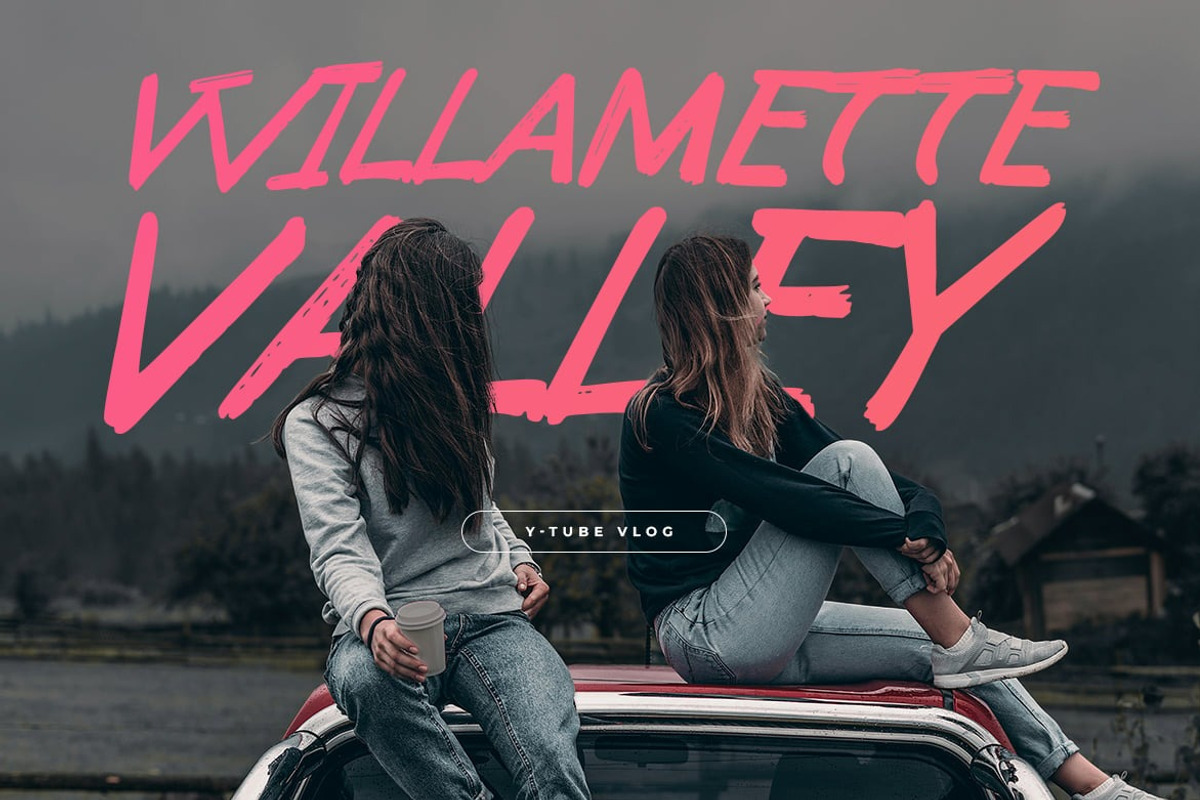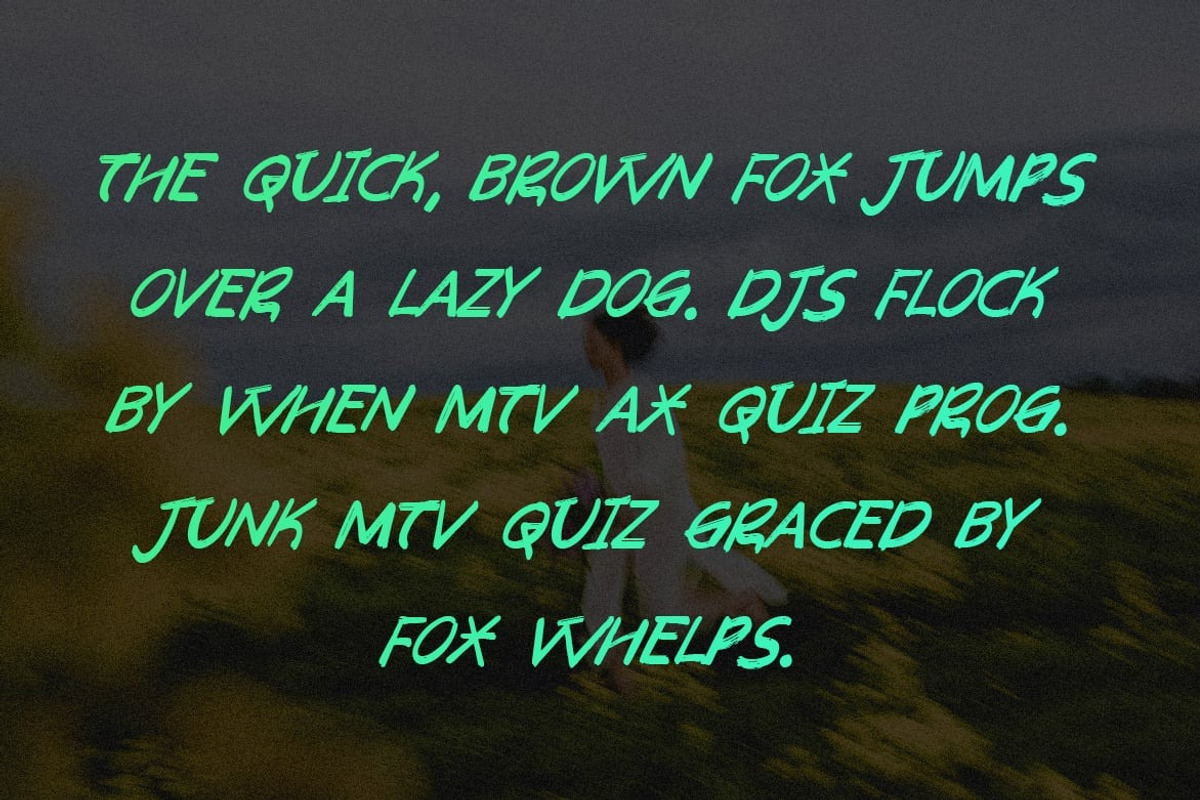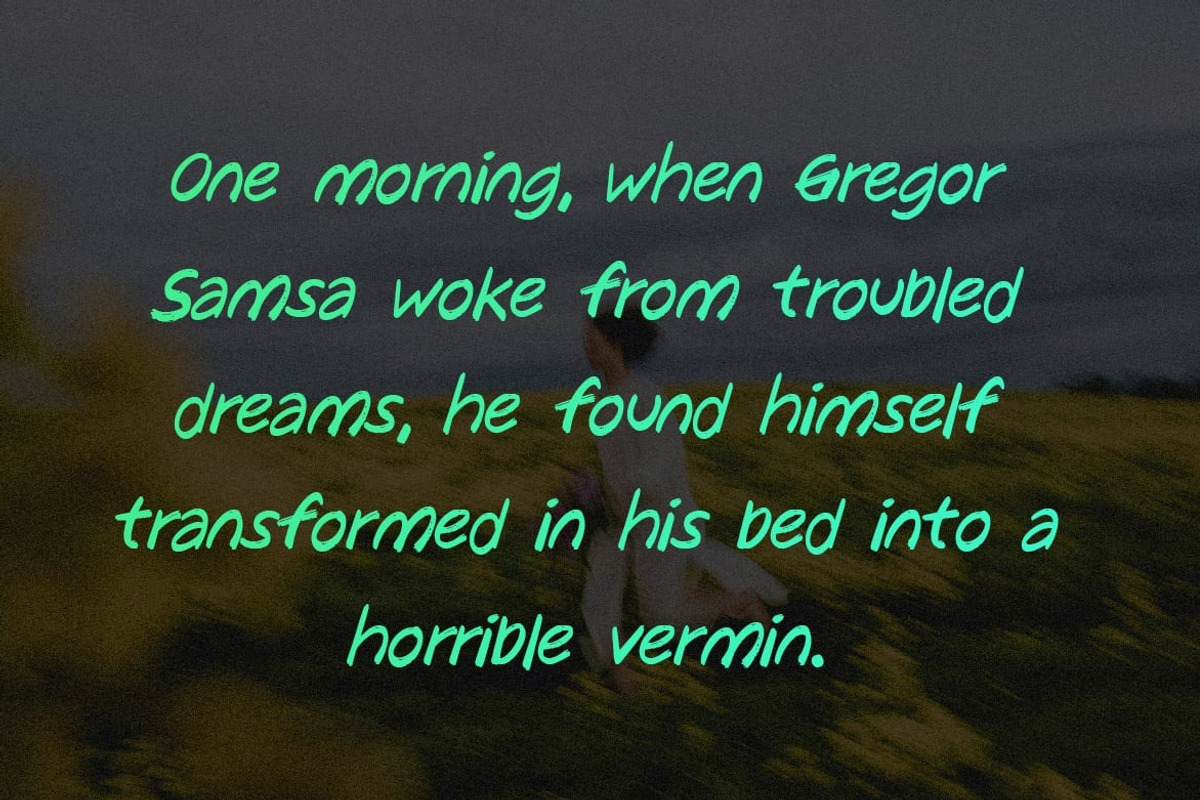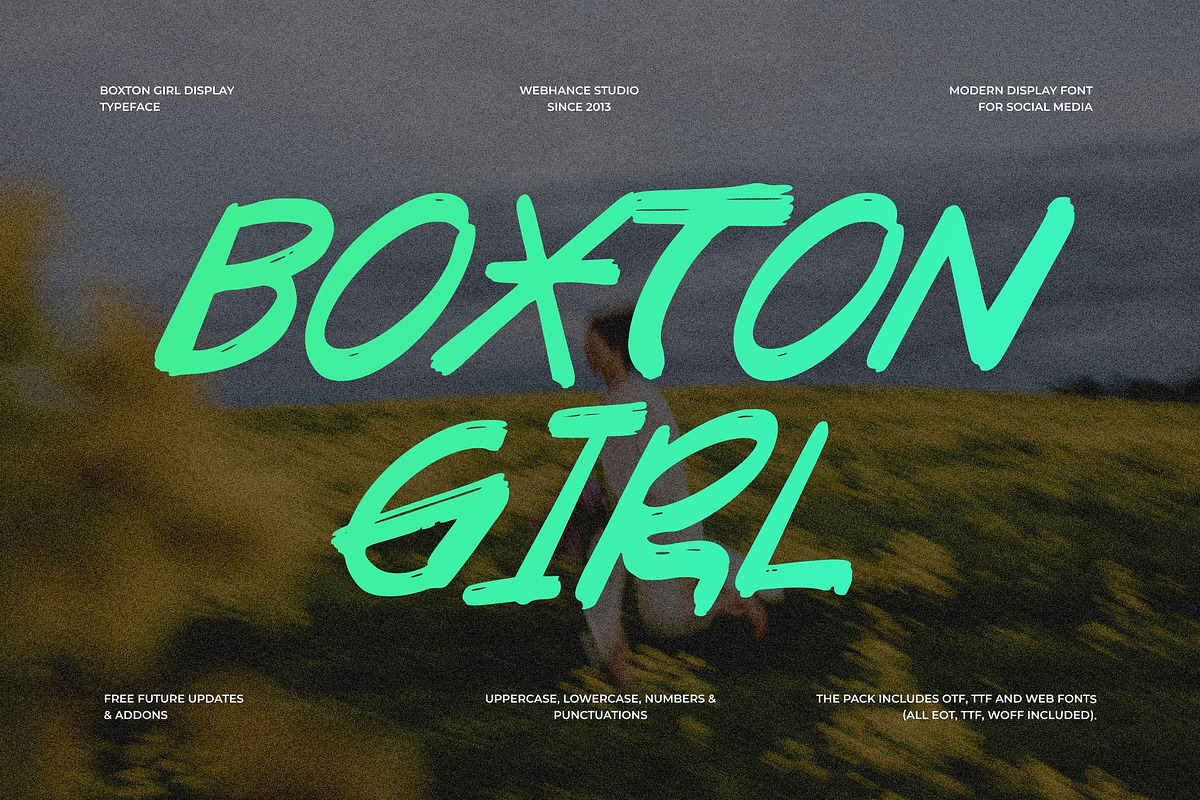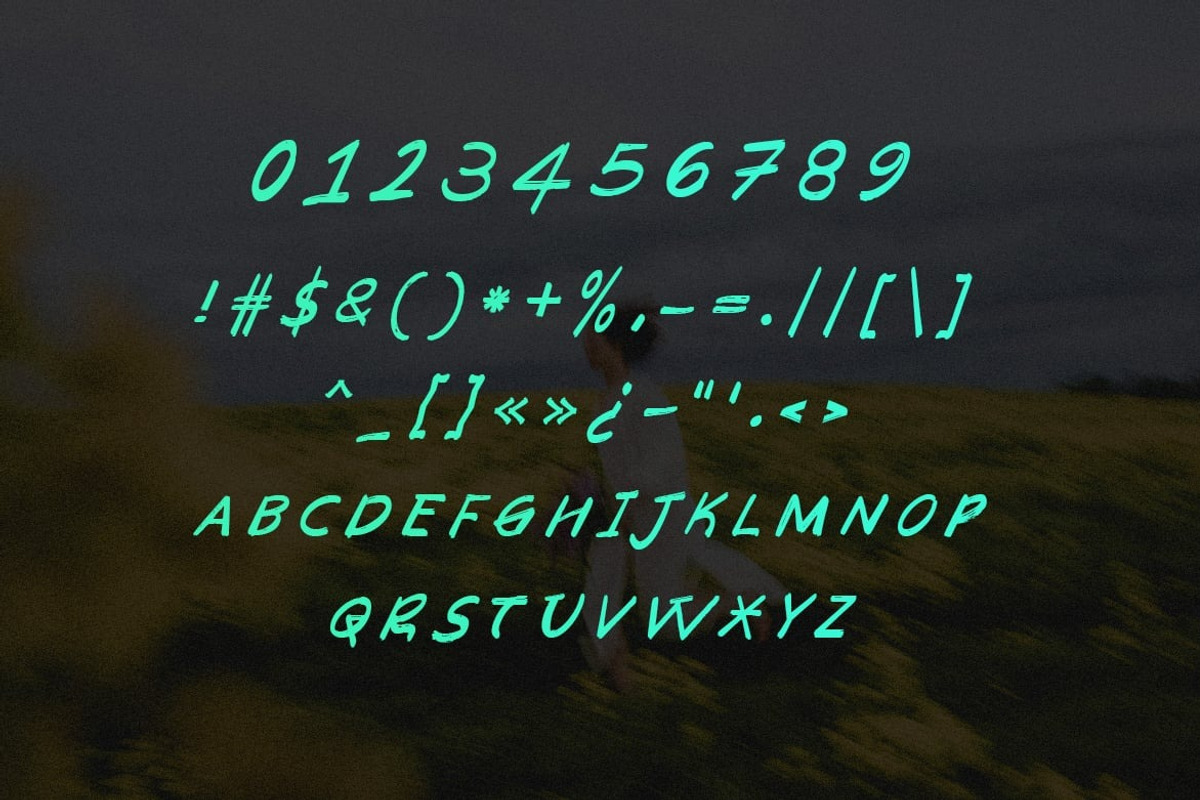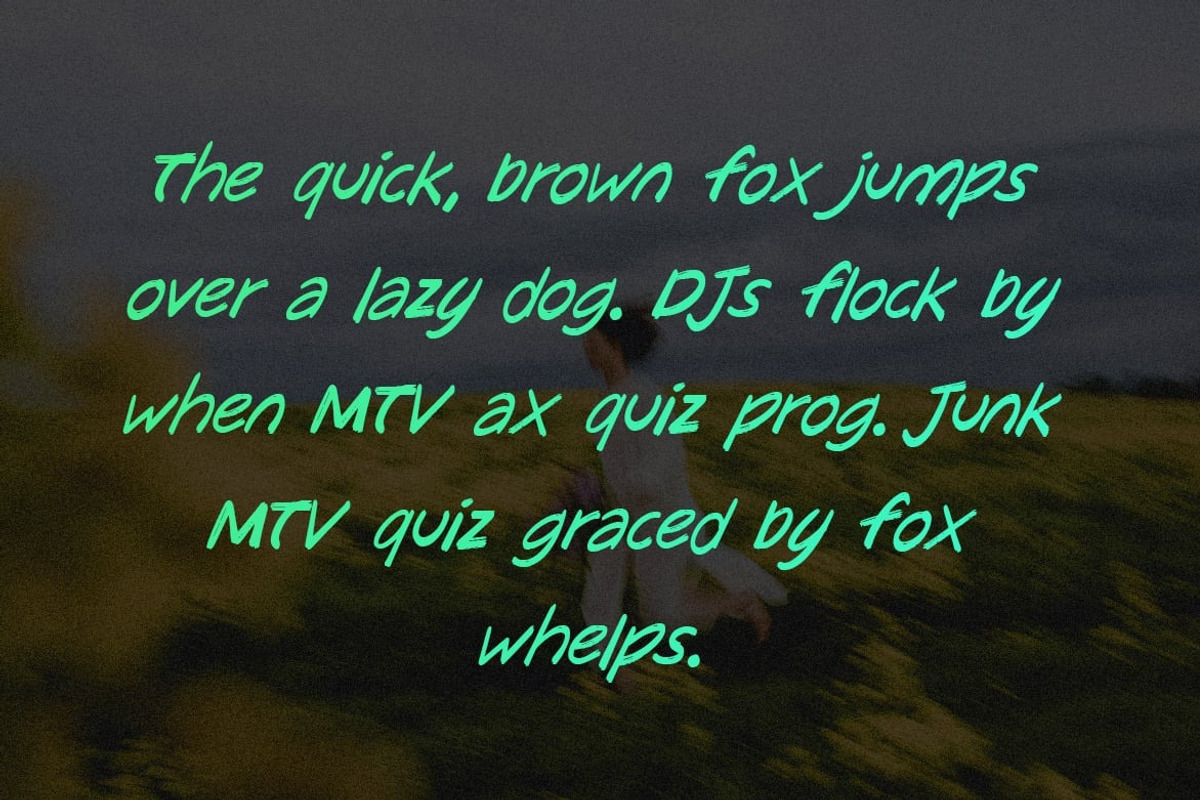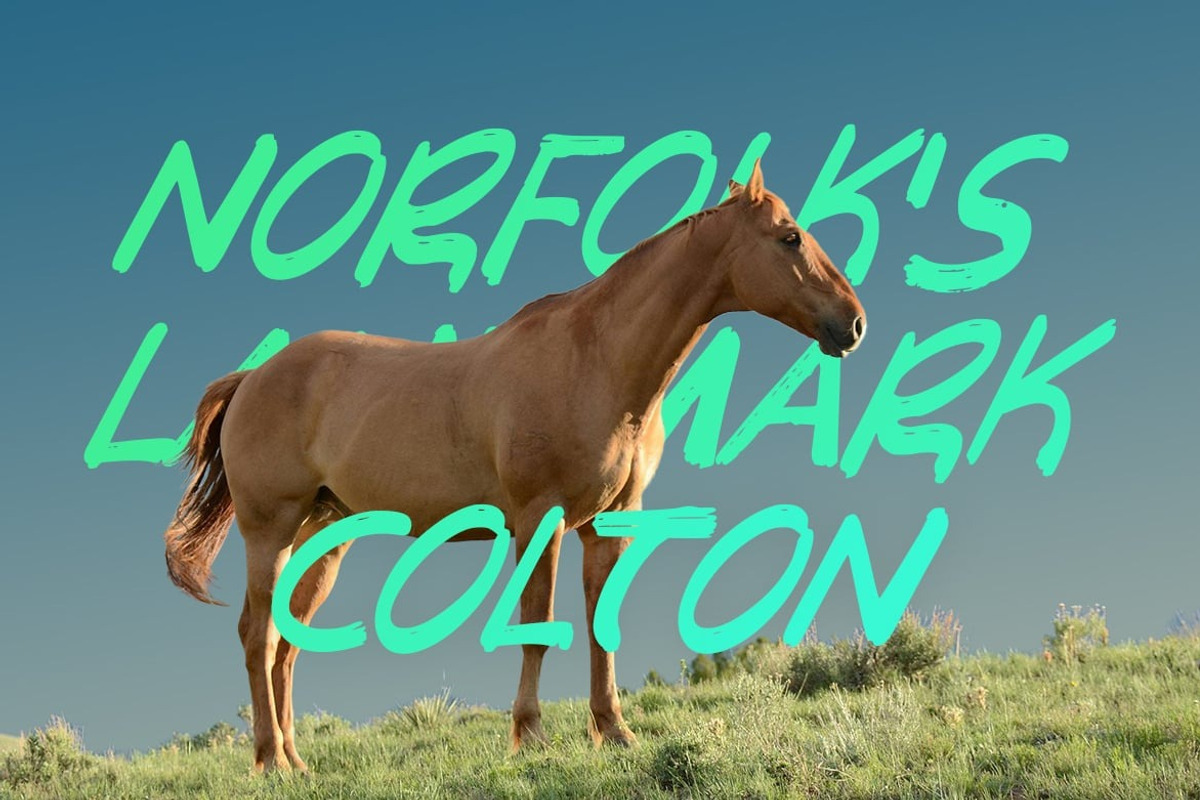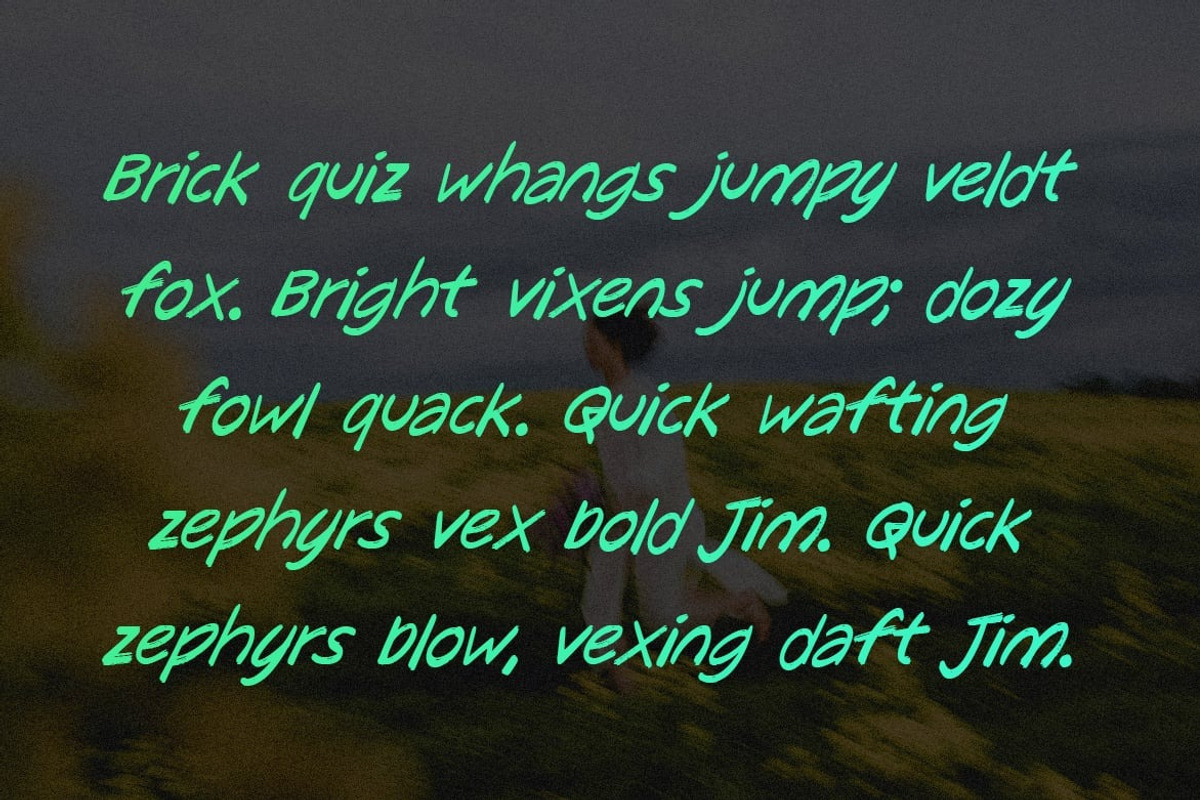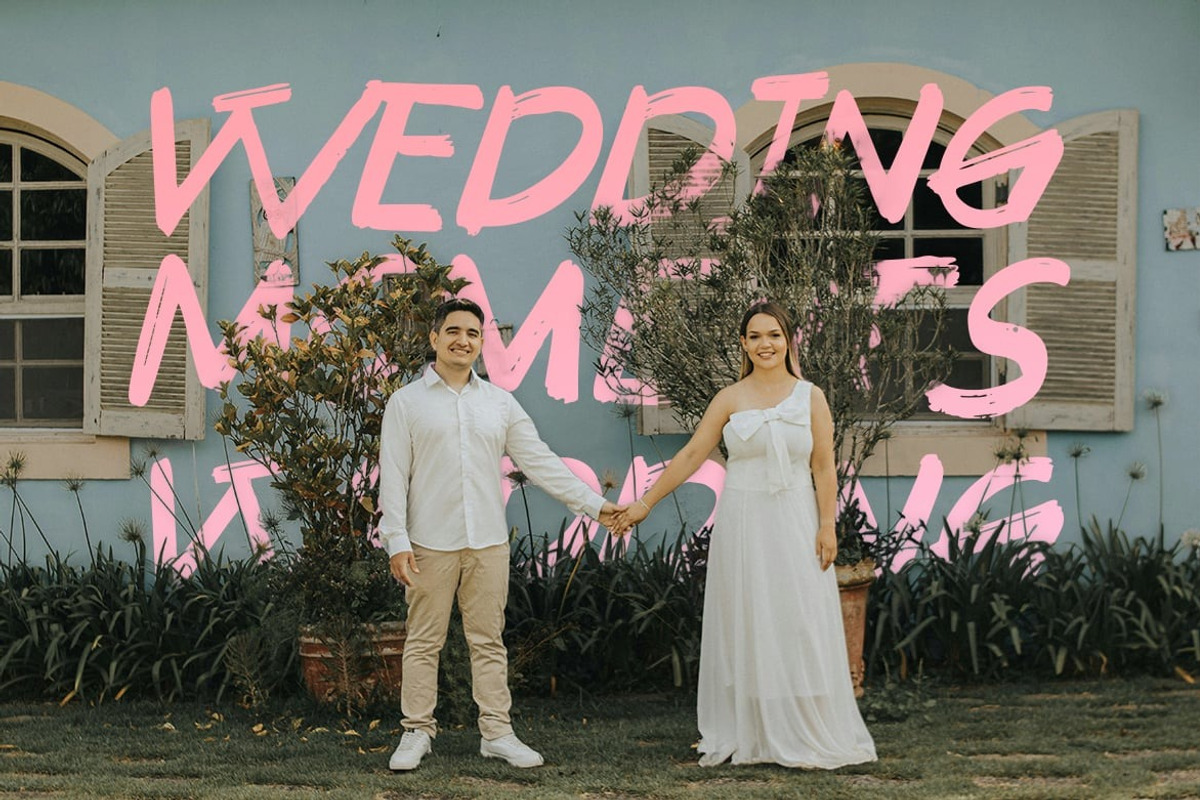
Boxton Girl - Handcrafted Display
Boxton Girl is a bold and expressive hand-drawn typeface that fuses vintage charm with modern versatility. Its rugged strokes and organic flow create a striking presence, making it an excellent choice for branding, logos, posters, packaging, and more. With its raw yet artistic appeal, Boxton Girl brings an authentic and timeless touch to any design, ensuring a lasting impression.
With Boxton Girl, every letter carries a handcrafted essence that adds depth and personality to your designs. Its bold presence and vintage appeal make it a go-to choice for designers looking to create standout visuals in print media. Whether you're designing eye-catching packaging, sophisticated editorial layouts, or memorable brand identities, Boxton Girl ensures your work commands attention. Elevate your creative projects with a font that blends authenticity, versatility, and timeless charm.